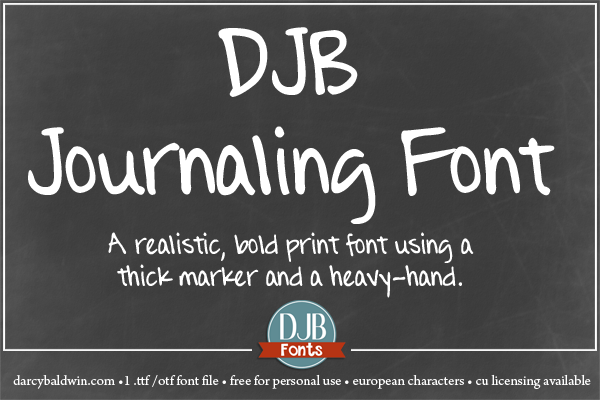
Preview and download DJB Journaling Font. Created by Darcy Baldwin in Script Handwritten styles with Free for personal use license.
This font is free for personal use. Any commercial use such as logos, web design, product sales, embroidery font end-sales, books, apps, etc. require a commercial use license available here: http://darcybaldwin.com/commercial-use DJB Journaling Font is a heavy-handed, handwritten font with a thick dark marker and heavy strokes, giving it a realistic look. This font contains 1 .ttf/.otf font file with full upper and lower case alpha, numbers, most punctuation, arrows, and European language glyphs. Follow DJB Fonts on Facebook: https://www.facebook.com/DarcyBaldwinFonts |